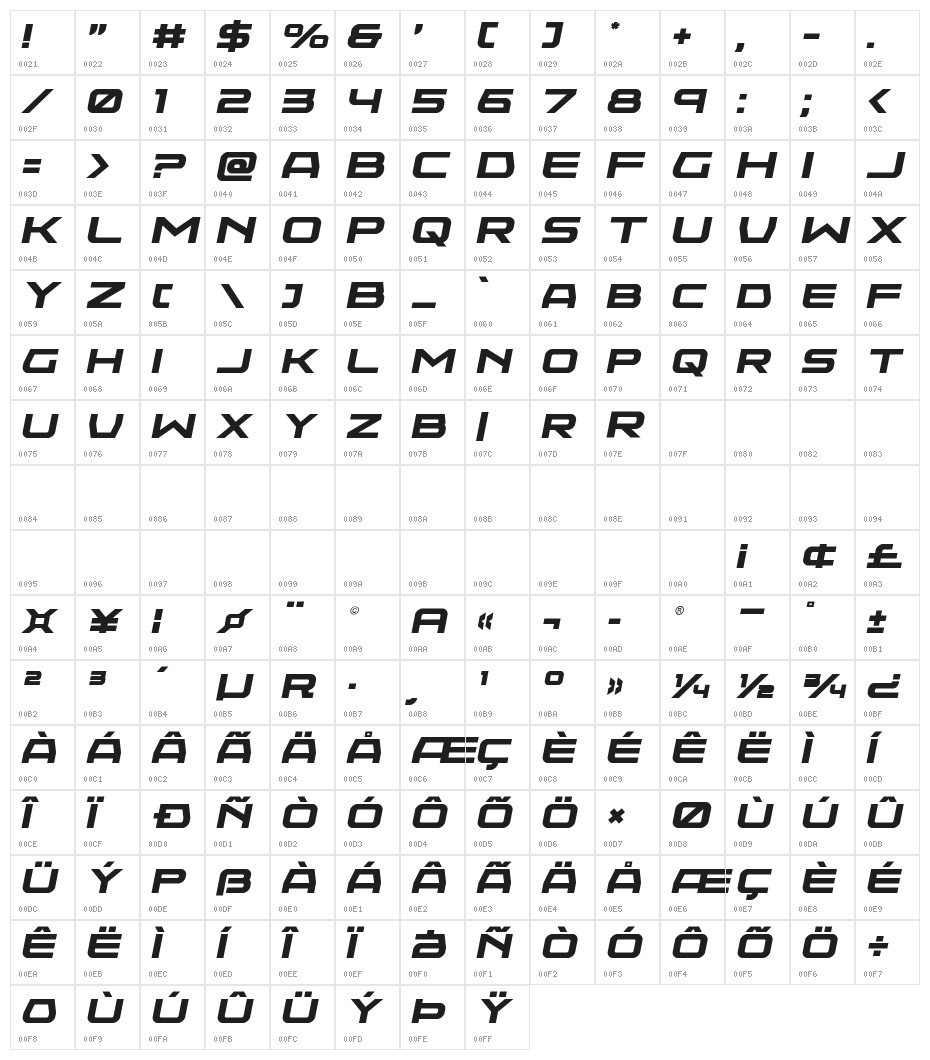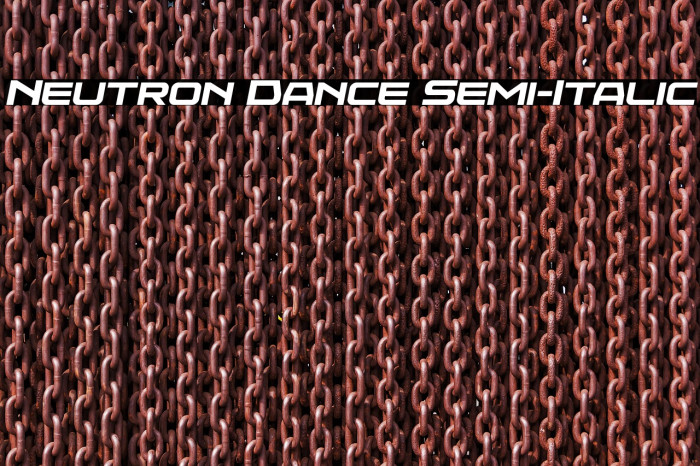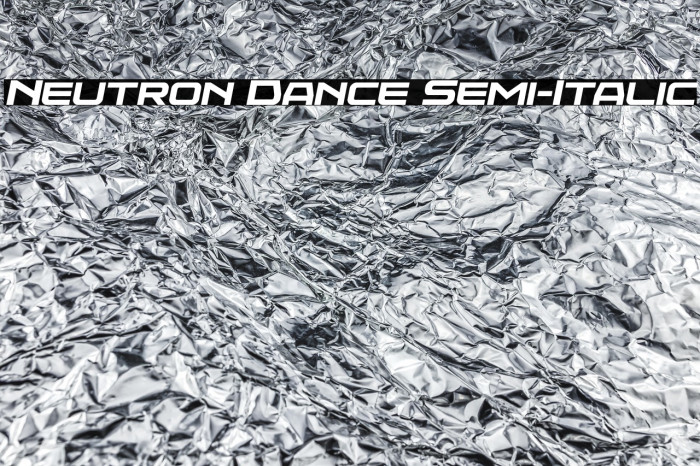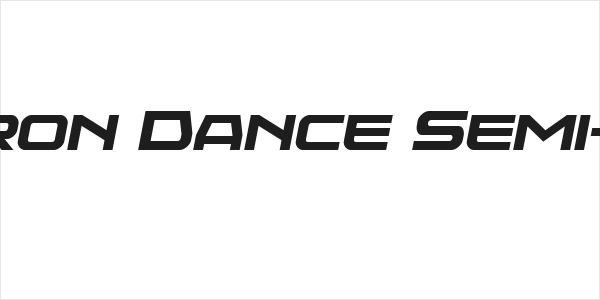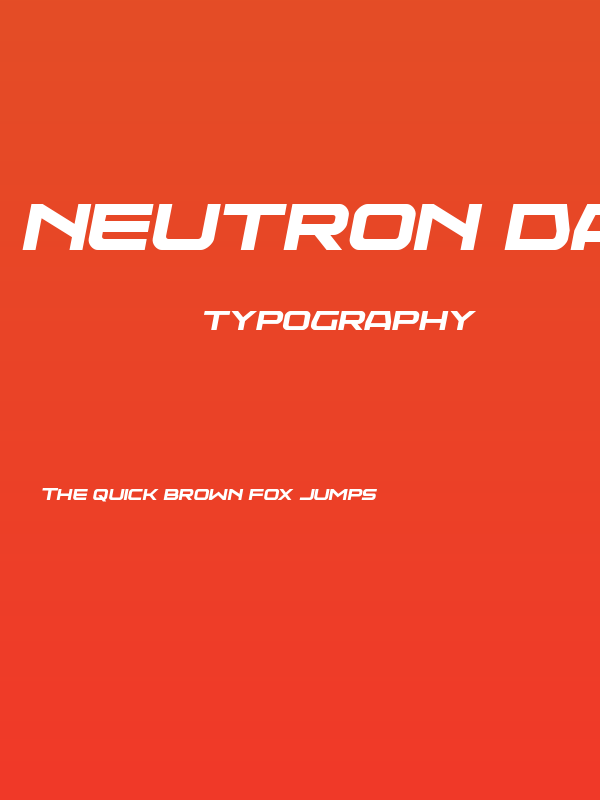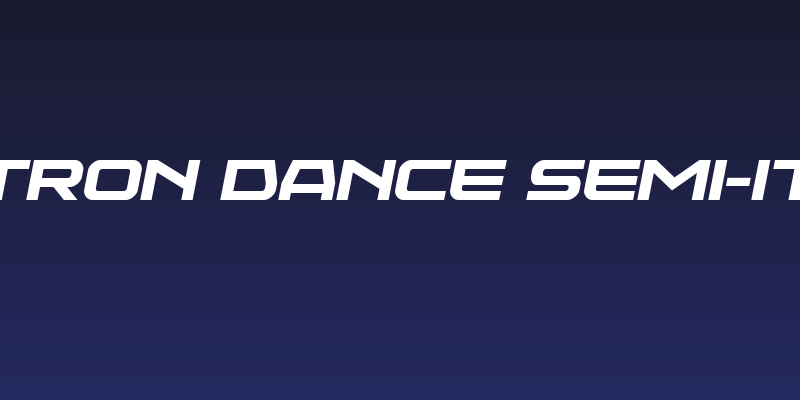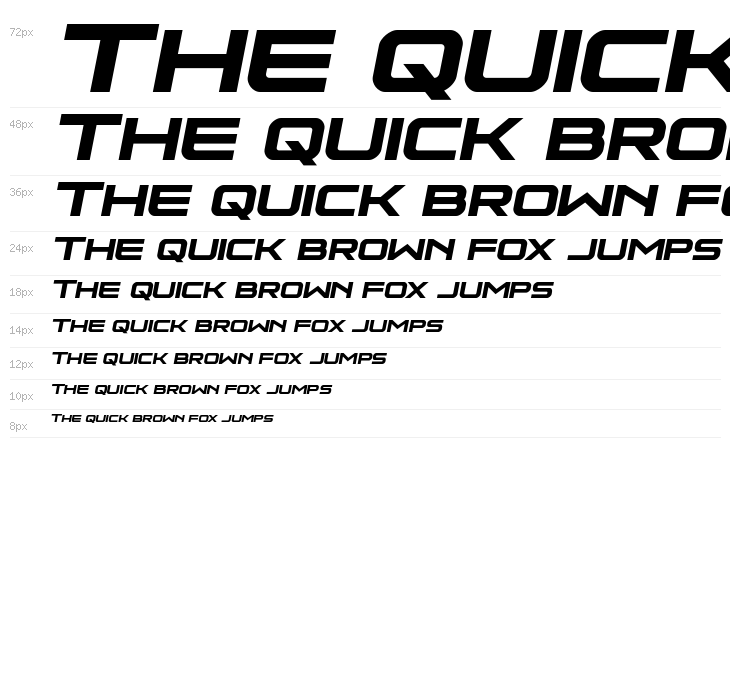
Neutron Dance Semi-Italic Font
Neutron Dance Semi-Italic Description
This font exhibits a sleek, modern design with a semi-italic style that adds a dynamic and forward-moving appearance. The characters are slightly slanted, giving a sense of motion and energy. The strokes are consistent in weight, providing a uniform and balanced look. The font features a geometric structure with sharp angles and clean lines, making it suitable for contemporary and tech-oriented designs. The numerals and special characters maintain the same stylistic approach, ensuring coherence across all elements. This font is ideal for projects that require a futuristic or cutting-edge aesthetic.
| Use Case | Headlines, Logos, Digital Interfaces |
| Proposed Projects | Ideal for tech branding, modern advertising, digital interfaces, and futuristic designs. |